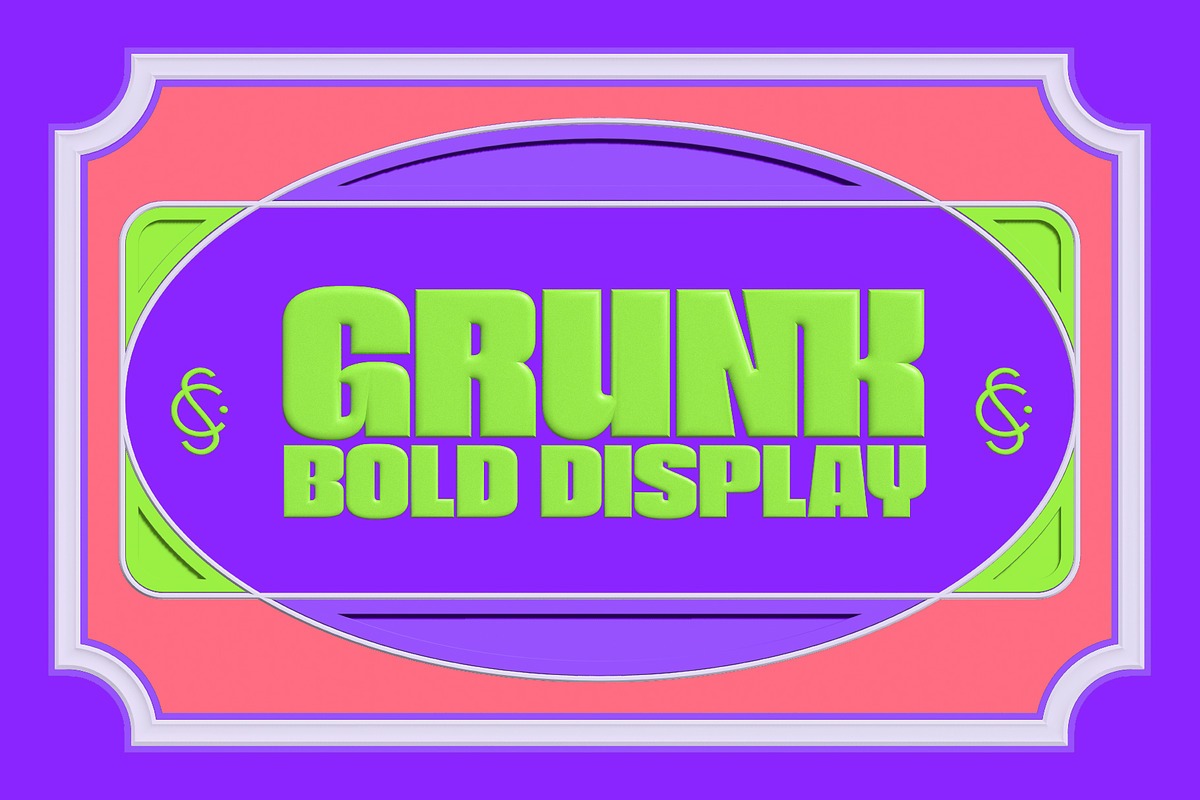
Grunk – Bold Diplay Font
Grunk – Bold Diplay Font brings a balanced structure and contemporary look, making it suitable for both digital and print design. Grunk is a Bold and Groovy Typeface with Retro Cartoon Vibes! Designed to make your designs pop, Grunk blends playfulness and boldness into one stunning typeface. Featuring chunky letters, groovy alternates, and experimental ligatures, this font is perfect for projects that demand a vibrant, nostalgic, and funky feel.
Ideal for posters, branding, album covers, stickers, logotypes, and editorial designs, Grunk is your go-to choice for a typeface that screams energy and character. Whether you’re creating Y2K-inspired graphics or bold modern visuals, Grunk has everything you need.
Key Features:
Chunky & Playful Style – Retro, cartoon-inspired, and bold
Groovy Alternates & Ligatures – Make every letter unique
Perfect for branding, editorial, posters, packaging & more